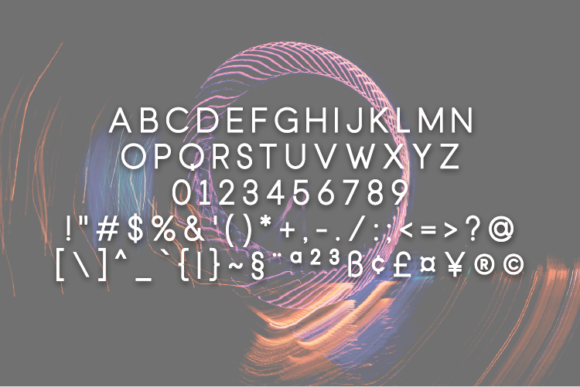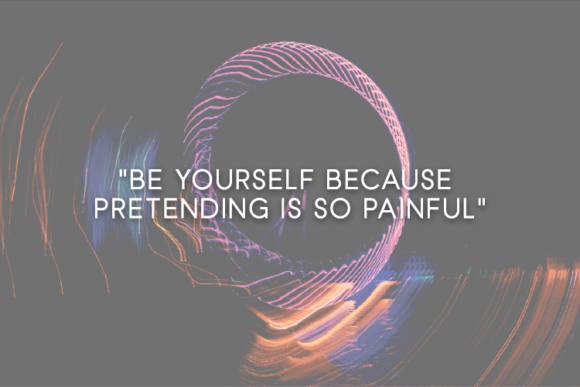
Introduction to Fhuexole Font
Have you ever found yourself staring at a blank canvas, wondering what design element will bring your creative project to life? For many designers, the perfect font can be the key to unlocking a truly innovative concept. That’s where the Fhuexole Font comes in – a sleek, modern sans serif font that’s sure to elevate your next design.
With its clean lines and minimal aesthetic, the Fhuexole Font is the perfect design resource for any creative project. Whether you’re working on a logo, brochure, or website, this high-quality font is sure to add a touch of sophistication and style. Plus, with a transparent background, you can easily integrate it into your design without worrying about distracting elements.
Key Features of Fhuexole Font
- Unique, handcrafted design with a transparent background, allowing for seamless integration into any design project.
- Available in a single font style, with a range of sizes and resolutions to suit various design needs.
- Perfect for use in graphic design, digital art, and other creative projects where a high-quality, unique font is required.
- Supports various languages, making it a versatile design resource for international creative projects.
Honest Review: Fhuexole Font
As a designer, I’m always on the lookout for high-quality design resources to enhance my creative projects. Recently, I came across the Fhuexole Font, which I’ll be reviewing below.
Here’s what works well:
- ✨ Unique aesthetic: The Fhuexole Font has a distinctive, modern design that sets it apart from more traditional fonts.
- ✨ Versatile: This font can be used for a wide range of creative projects, from digital interfaces to print materials.
- ✨ Transparent background: This feature makes it easy to work with the font on different backgrounds.
However, there are some limitations:
- ⚠️ Limited character set: The Fhuexole Font has a relatively small character set, which may limit its use in certain situations.
Overall, the Fhuexole Font is a solid addition to any designer’s toolkit. Its unique design and versatility make it a great choice for creative projects. However, the limited character set and lack of free download options may be drawbacks for some users.
Designing with Fhuexole Font
When designing with Fhuexole Font, consider using a transparent background to create a clean and modern look. This font is ideal for creative projects that require a unique and eye-catching typography. Experiment with different font sizes and styles to achieve the desired effect.
Tips for Getting the Most Out of Fhuexole Font
To get the most out of Fhuexole Font, use it in combination with other design elements to create a visually appealing design. Consider using the font in conjunction with a bold or italic font style to add depth and interest to your design.
Common Use Cases for Fhuexole Font
Fhuexole Font is commonly used in creative projects such as logo design, brochure design, and social media graphics. Its unique design makes it an ideal choice for businesses and individuals looking to create a memorable brand identity.
Alternatives to Fhuexole Font
The Great Vibes Font is a high-quality, elegant script font that’s perfect for creative projects requiring a sophisticated touch. It features a transparent background, making it ideal for designs where texture is essential. Great Vibes Font is ideal for wedding invitations, greeting cards, or any design where a classic, vintage feel is desired.
Compared to Fhuexole Font, Great Vibes Font has a more refined, elegant appearance, making it suitable for more formal designs. While Fhuexole Font is great for casual, playful projects, Great Vibes Font is better suited for high-end creative projects.